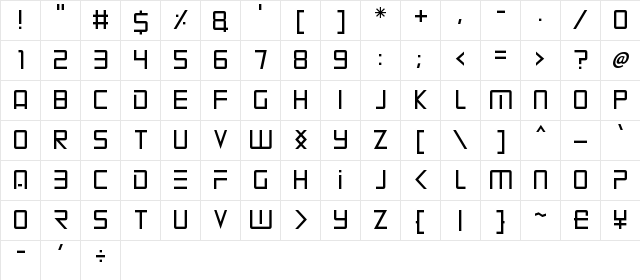
Mars Mission Regular
Design Context for Mars Mission Typeface
Mars Mission offers clean, dependable letterforms without strong stylistic allegiance, making it a practical choice for designers who need flexibility.
Pro Tip: Pair Mars Mission with a font of contrasting weight or personality to build a more expressive typographic hierarchy.